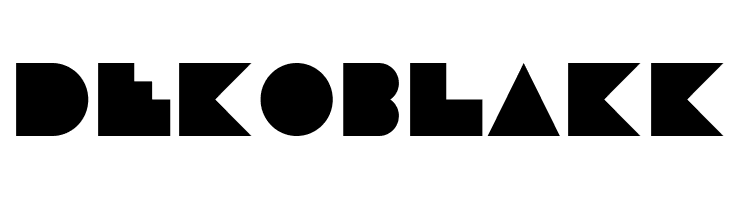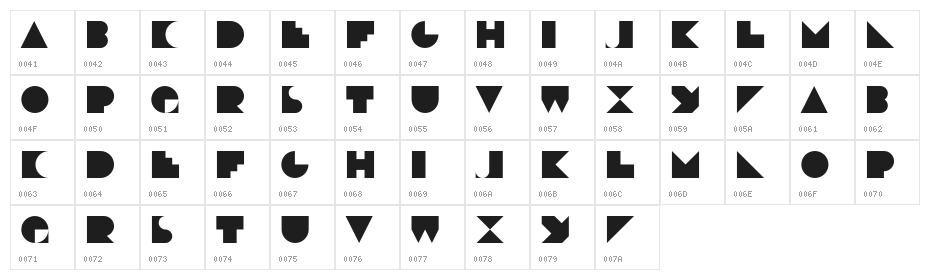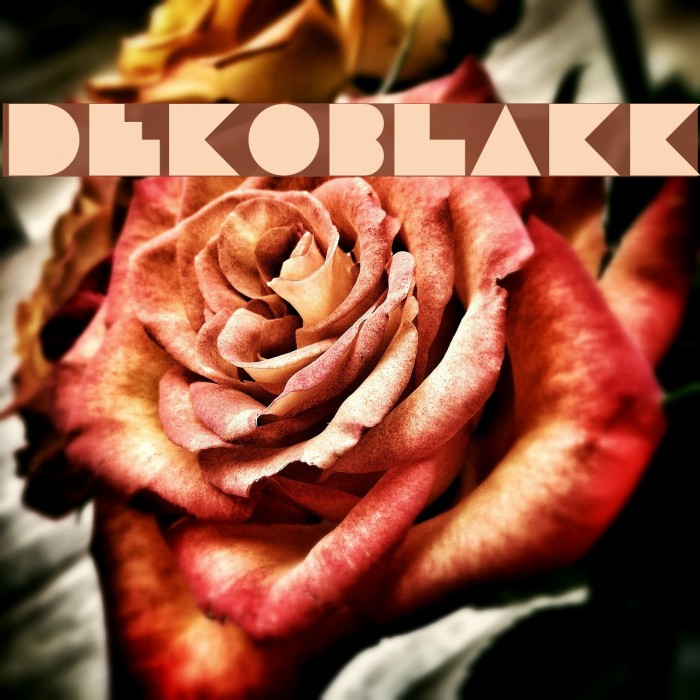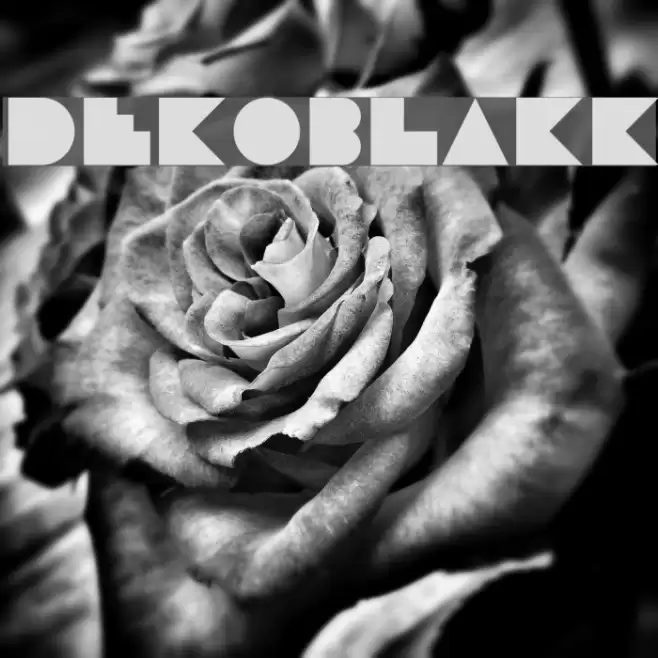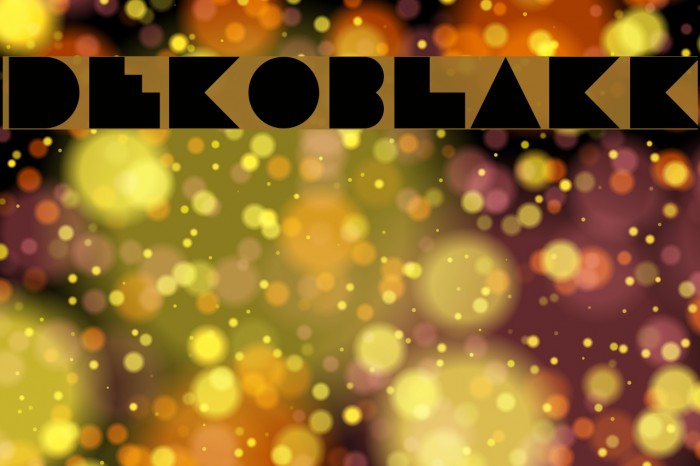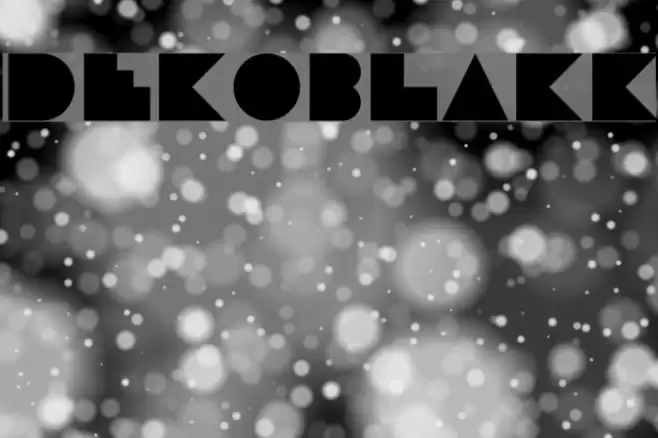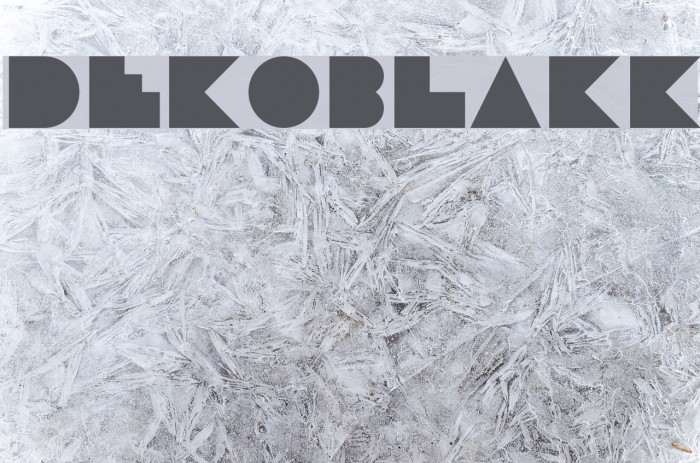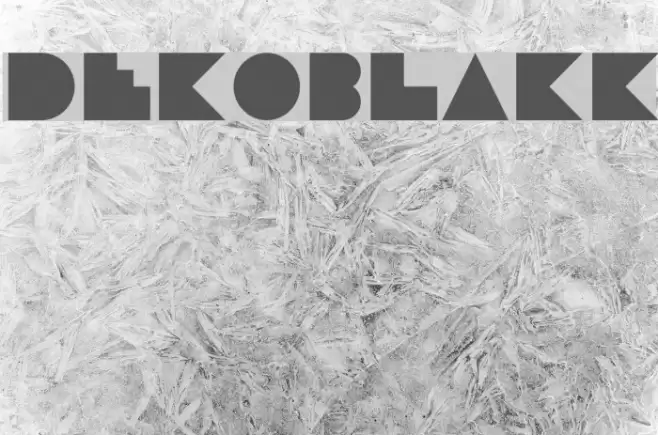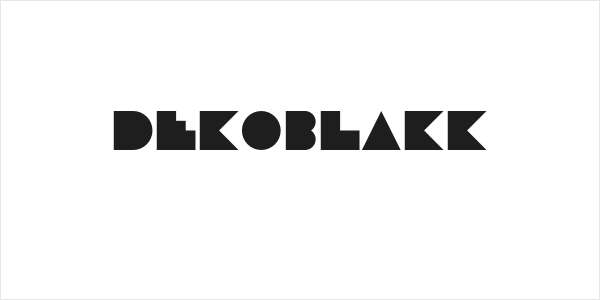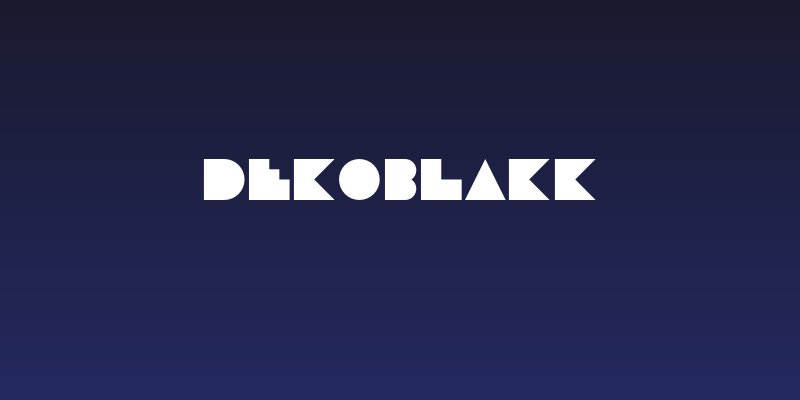
DekoBlakk Font
DekoBlakk Description
This font features a bold and geometric design, characterized by its sharp angles and distinct shapes. The uppercase letters are constructed with a mix of solid blocks and negative space, creating a striking visual contrast. The design is modern and artistic, with each character having a unique form that contributes to an overall cohesive look. The font lacks lowercase letters and numerals, focusing instead on a strong uppercase presence. Its style is reminiscent of Art Deco, with a contemporary twist that makes it suitable for eye-catching designs.
Proposed ProjectsIdeal for branding, posters, album covers, and any project requiring a bold, artistic statement.